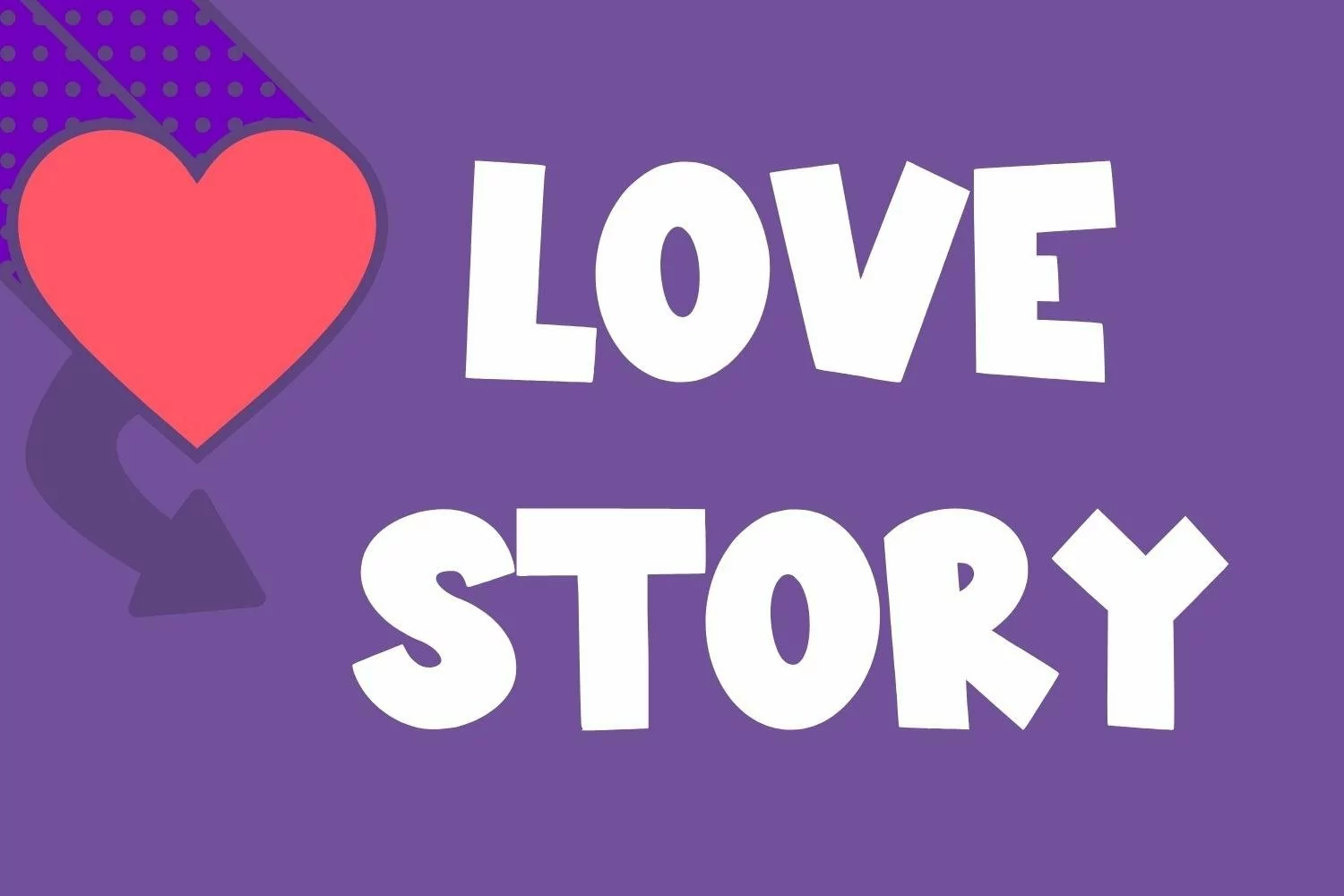
Ilarion Joy - A Playful Display Font that contain lowercase, uppercase, symbol, and also support multi language. There’s a lot ligatures in this font. This Font also comes with ligatures, alternates and many more. this font suitable for fashion, branding, catalog and other design what you want.
Ilarion Joy